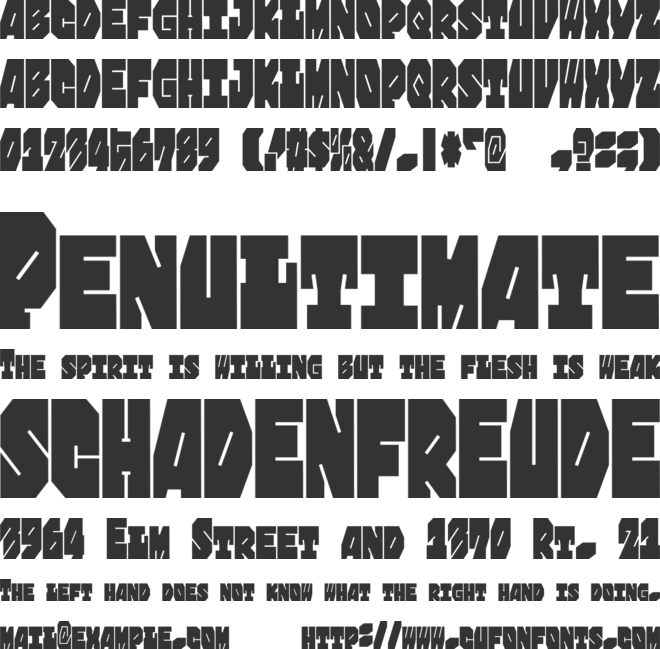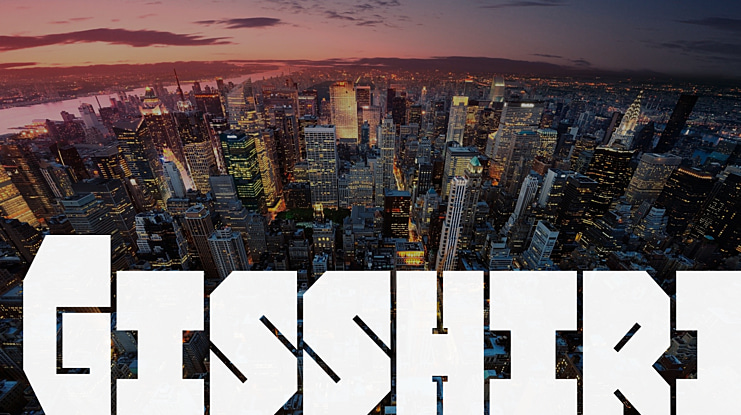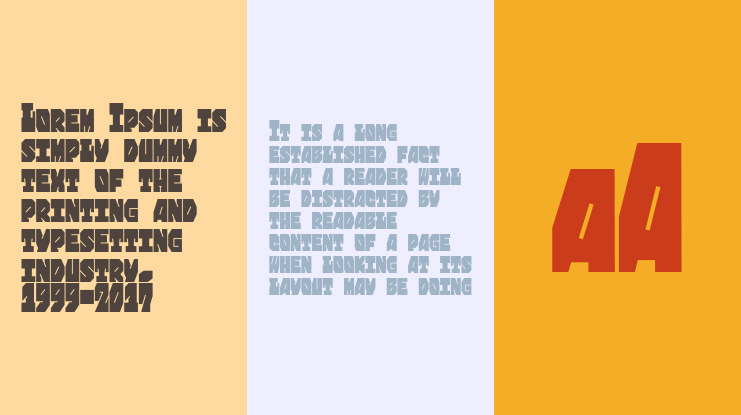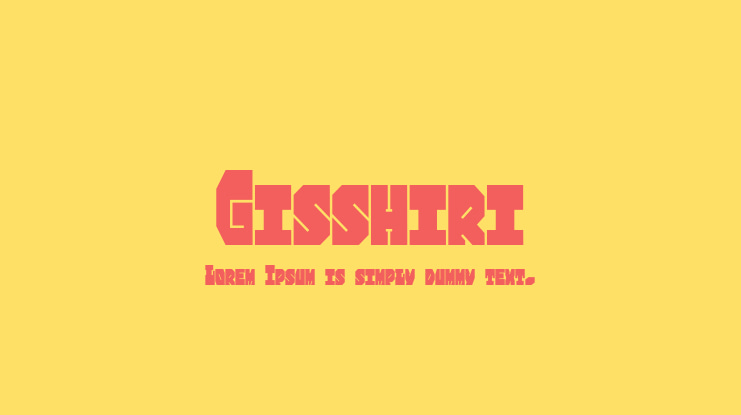
Gisshiri Font
It consists only of straight lines and is characterized by being tightly packed. It's a very peculiar character, so if you use it in the text, it will be very difficult to read.
Contains alphanumeric characters, hiragana, katakana, some symbols, and a few kanji.
直線のみで構成され、ぎっしり詰まっているのが特徴です。かなりクセのある文字ですので、本文に使用すると非常に読みづらくなると思います。
英数字・ひらがな・カタカナ・一部の記号・小学三年生までに習う漢字+αが収録されています。
Gisshiri